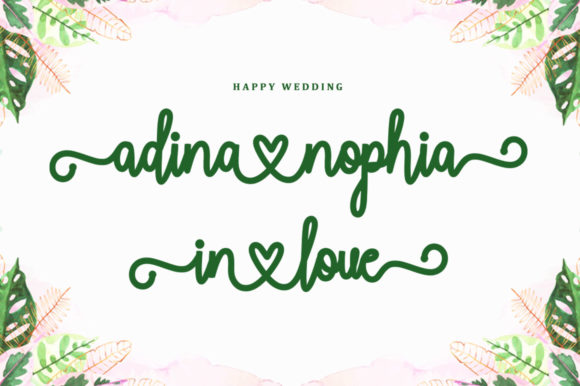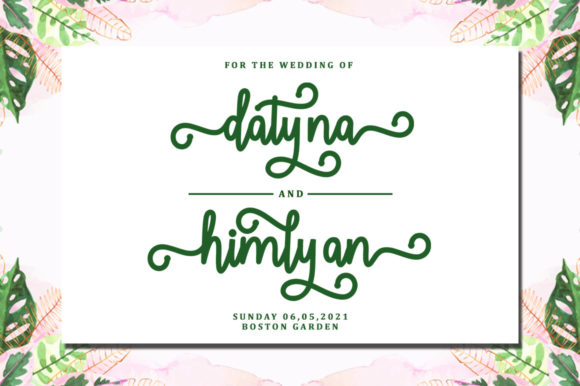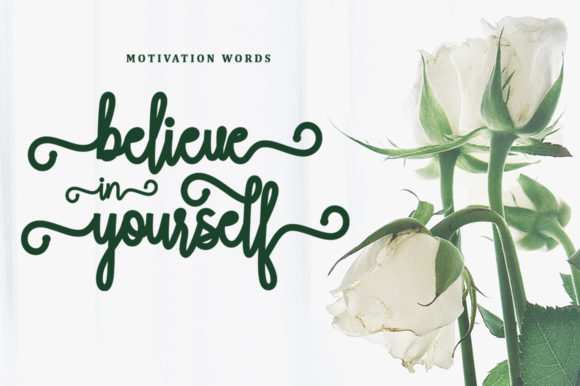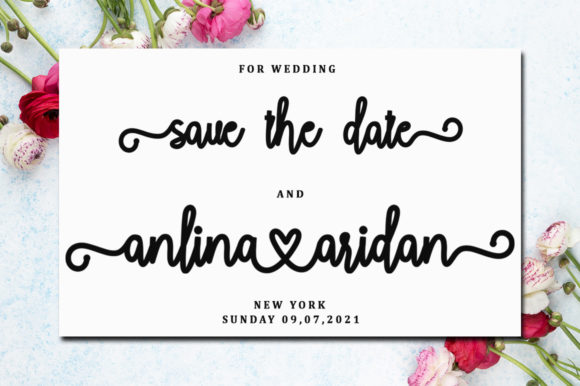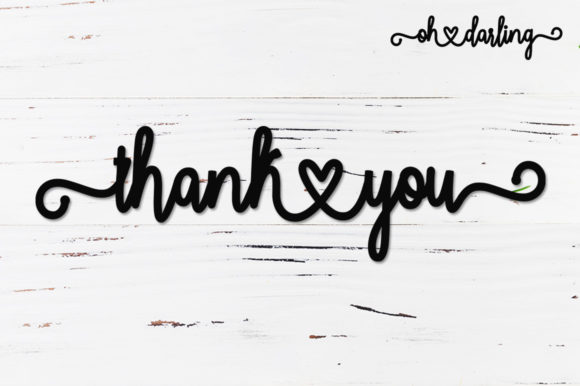
Dentany Font: Elevate Your Designs with Luxurious Modern Calligraphy
In the world of typography, a well-crafted font can make all the difference in elevating your design from ordinary to extraordinary. For designers and crafters seeking a touch of luxury and sophistication, Dentany Font is an exceptional choice. This modern calligraphy script font boasts a beautiful, connected style that exudes elegance and refinement.
What is Dentany Font?
Dentany Font is a meticulously designed calligraphy script font that features a high level of detail, making it perfect for applications where a luxurious feel is desired. Its classic style ensures versatility, allowing it to be seamlessly integrated into various formal designs, including invitations, labels, restaurant menus, logos, fashion and makeup branding, stationery, novels, magazines, books, greeting and wedding cards, packaging, and more.
Key Features of Dentany Font
- Modern Calligraphy Style: Dentany Font embodies the essence of modern calligraphy, with flowing lines and a connected script that adds a personal touch to any design.
- Luxurious and Elegant: The high level of detail in Dentany Font gives it a luxurious appearance, making it ideal for high-end branding, wedding stationery, and premium product packaging.
- Versatile: Its classic style ensures that Dentany Font can be used across a wide range of applications, from formal events to commercial branding.
- Highly Readable: Despite its elegant and cursive nature, Dentany Font maintains a high level of readability, making it suitable for both headings and body text.
Applications of Dentany Font
The versatility of Dentany Font makes it a valuable asset for designers and crafters working on a variety of projects. Here are some of the key areas where Dentany Font can make a significant impact:
- Invitations and Wedding Cards: Add a touch of elegance to your wedding invitations, save-the-date cards, and other formal event announcements.
- Branding and Logos: Elevate your brand with a sophisticated logo or wordmark that communicates luxury and refinement.
- Menus and Packaging: Enhance the visual appeal of restaurant menus, product packaging, and labels with a font that conveys quality and sophistication.
- Stationery and Journals: Create beautiful stationery sets, journals, and notebooks that stand out with their elegant typography.
- Digital and Print Media: Use Dentany Font in magazines, books, and digital publications to add a touch of class and elegance.
Tips for Using Dentany Font Effectively
To maximize the impact of Dentany Font in your designs, consider the following tips:
- Pair with Complementary Fonts: Combine Dentany Font with clean, sans-serif fonts for body text to create a balanced and visually appealing design.
- Adjust Letter Spacing: Fine-tune the letter spacing to ensure optimal readability and aesthetic appeal.
- Use Size and Weight Variations: Experiment with different sizes and weights of Dentany Font to create visual hierarchy and emphasize key elements.
Dentany Font is a stunning example of modern calligraphy script fonts, offering a unique blend of elegance, luxury, and versatility. Whether you’re a designer looking to elevate your branding projects or a crafter seeking to add a touch of sophistication to your handmade goods, Dentany Font is an excellent choice. With its beautiful style, high level of detail, and wide range of applications, Dentany Font is sure to become a valuable asset in your design toolkit.
Embrace the beauty of Dentany Font and discover new possibilities for creating luxurious and captivating designs that leave a lasting impression.